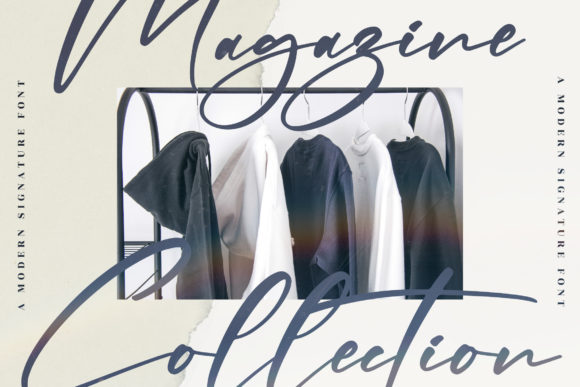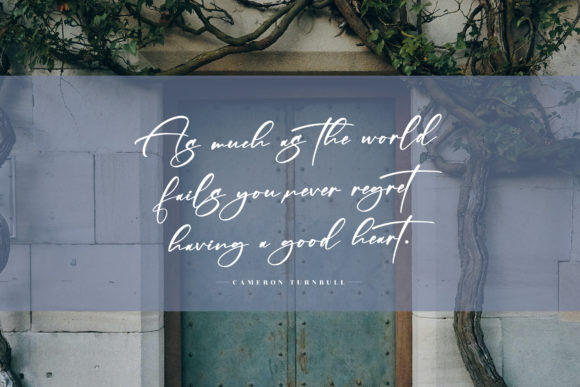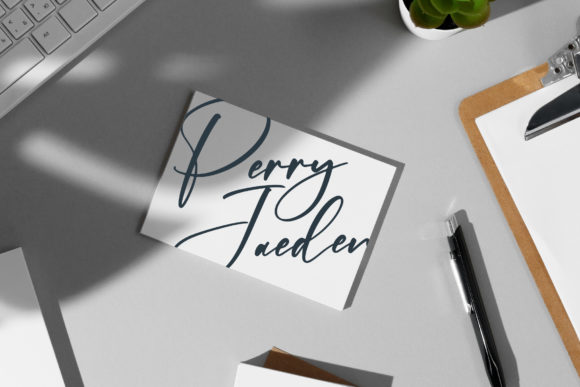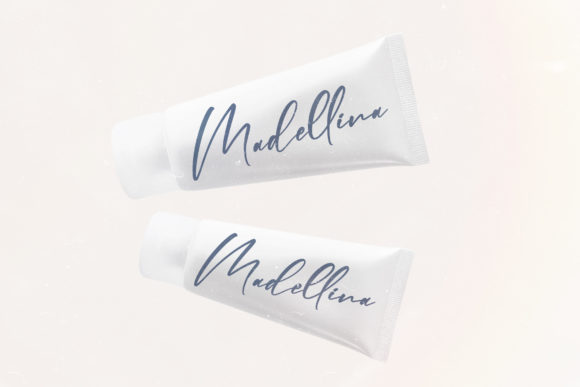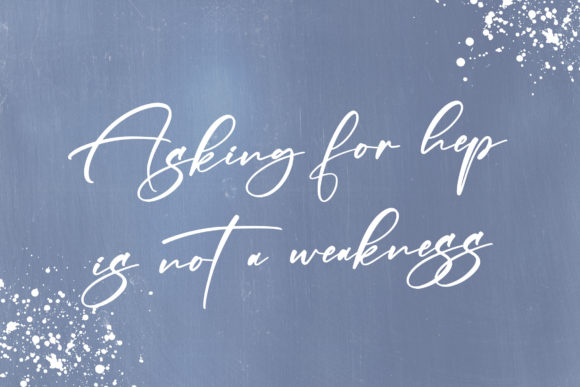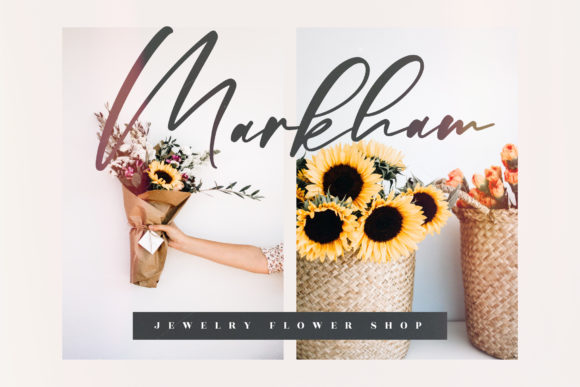
Introduction to Madellina Font
Madellina feels equally charming and elegant.
It looks stunning on wedding invitations, thank you cards, quotes, greeting cards, logos, business cards and every other design which needs a customized touch This font is PUA encoded which means you can access all of the glyphs and swashes with ease.